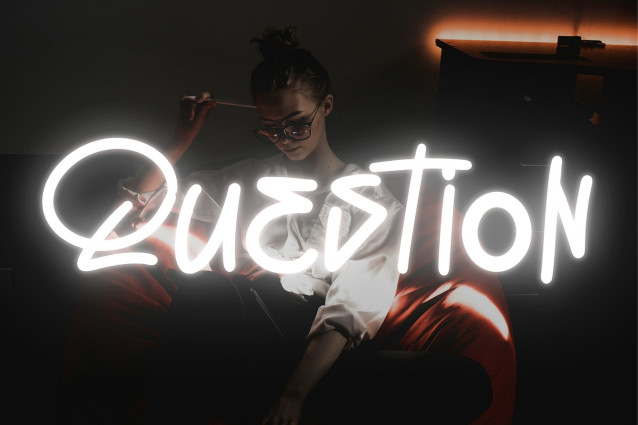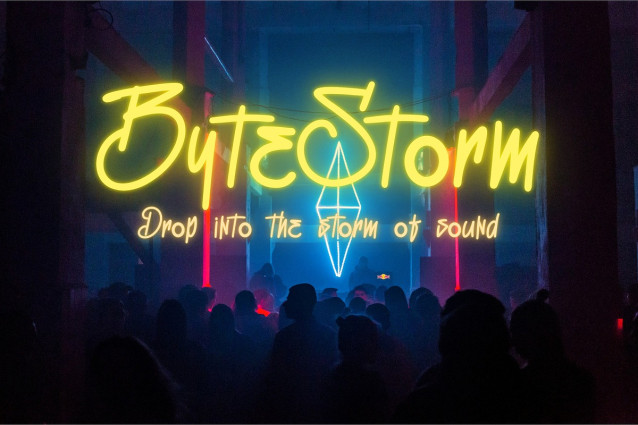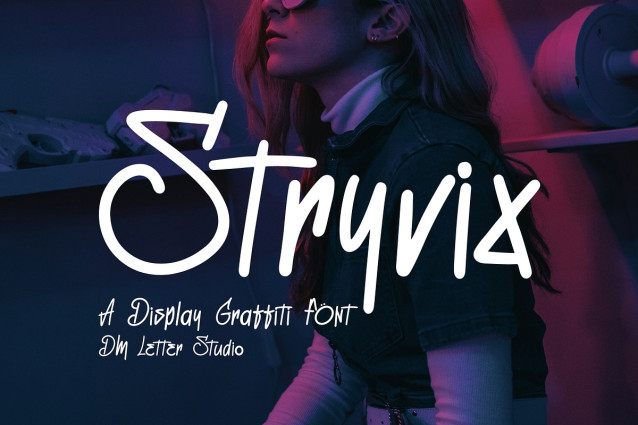
Stryvix Script Font
Stryvix Script Font is a bold graffiti display font designed to bring raw street energy into your typography. The letterforms feel sharp, expressive, and rebellious, like a fresh tag sprayed across a concrete wall. Each character carries a strong urban attitude that instantly makes designs look edgy and attention-grabbing. Use Stryvix for streetwear branding, music posters, gaming graphics, YouTube thumbnails, hip hop visuals, sticker art, and bold merchandise. As a result, your typography feels loud, urban, and full of personality.
Fast layouts with the Stryvix Font
Start with short, punchy words for maximum visual impact. After that, add spray textures, paint splashes, or thick outlines to strengthen the graffiti look. Because the shapes are bold and energetic, keep the backgrounds simple to maintain readability. In addition, pair it with a clean sans serif for captions, dates, or supporting information. Finally, try palettes like black and neon green, red and white, purple and cyan, or yellow and charcoal for powerful street contrast.